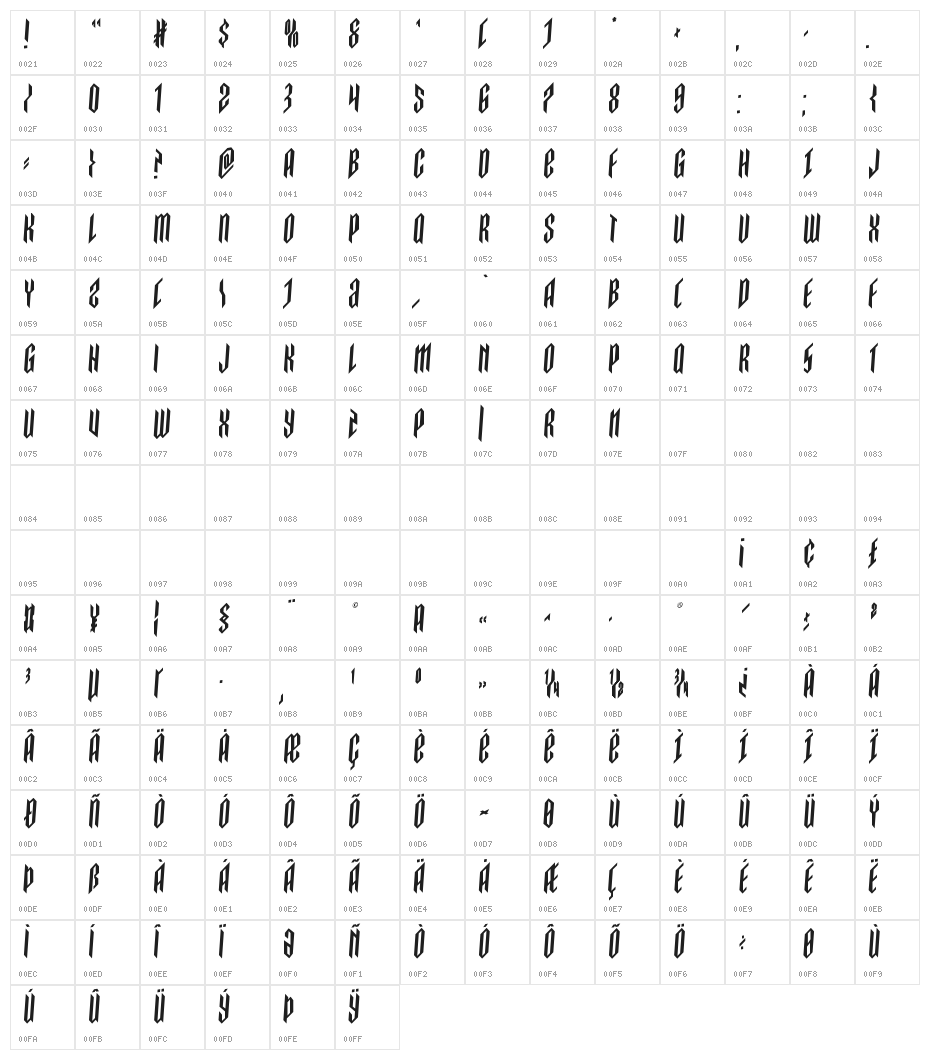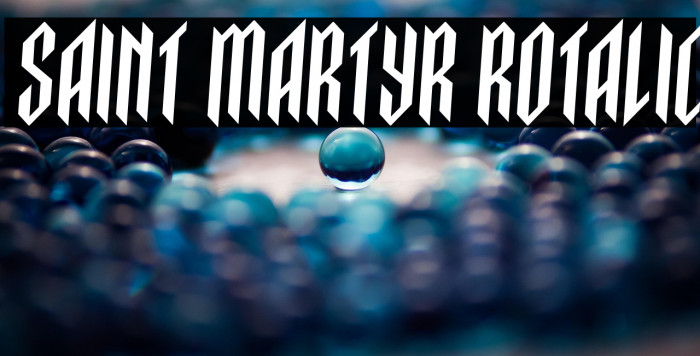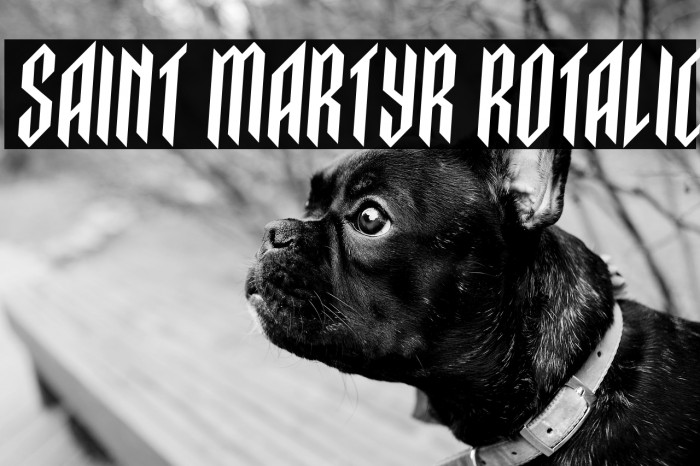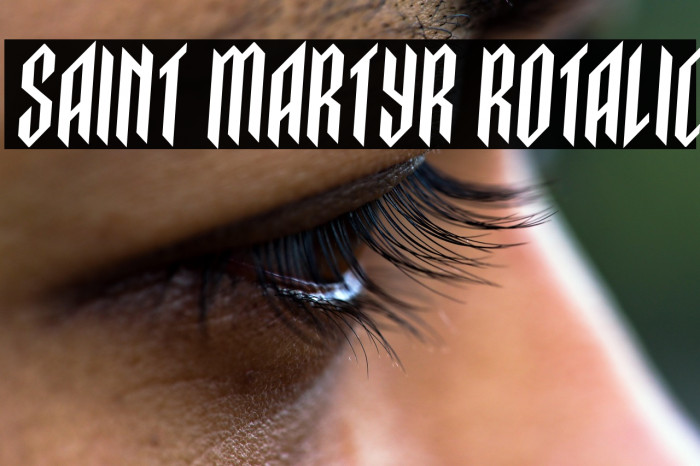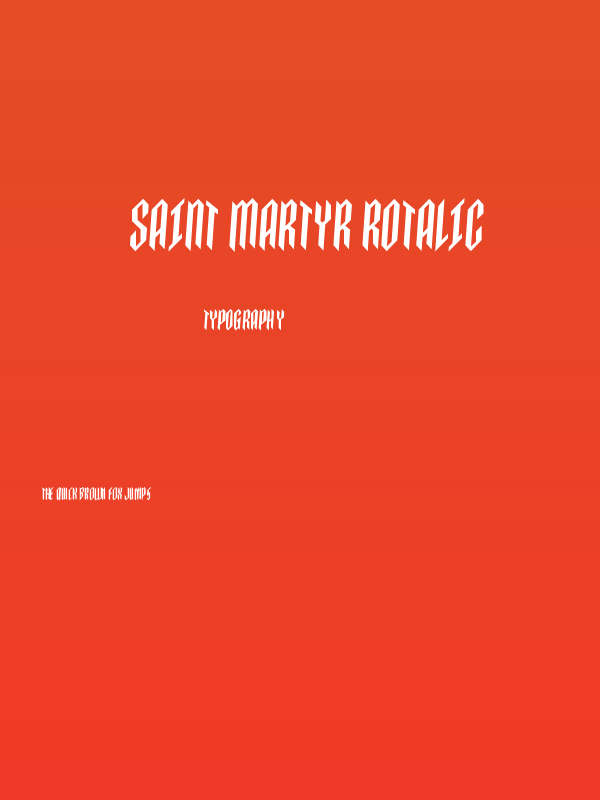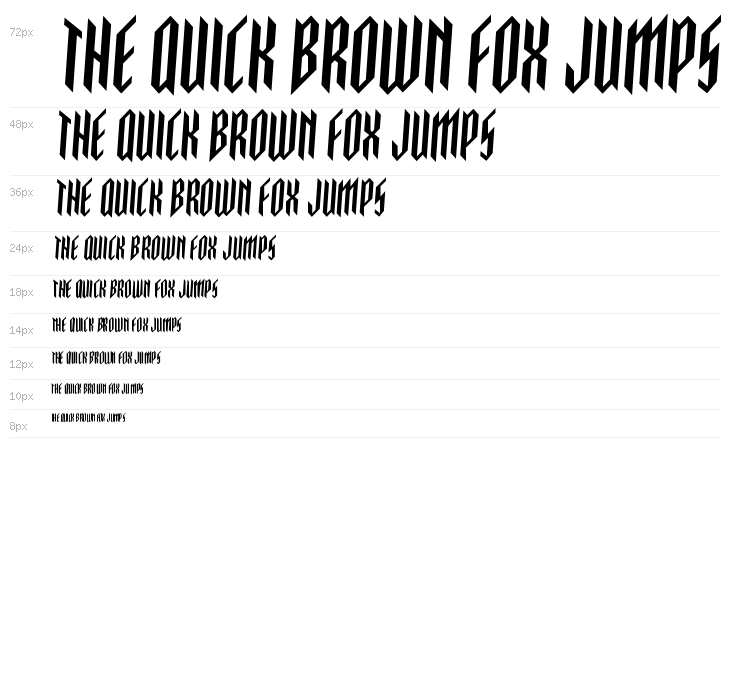
Saint Martyr Rotalic Font
Saint Martyr Rotalic Description
This font exhibits a bold and dynamic style with sharp, angular lines and a distinct slant, giving it a sense of movement and energy. The uppercase and lowercase letters maintain a consistent geometric form, with each character featuring pointed edges and a slightly condensed structure. The numbers and special characters follow the same angular theme, ensuring a cohesive look across all glyphs. The font's unique style makes it stand out, ideal for projects that require a strong visual impact.
| Proposed Projects | Ideal for branding, posters, and headlines that need a striking and modern appearance. |